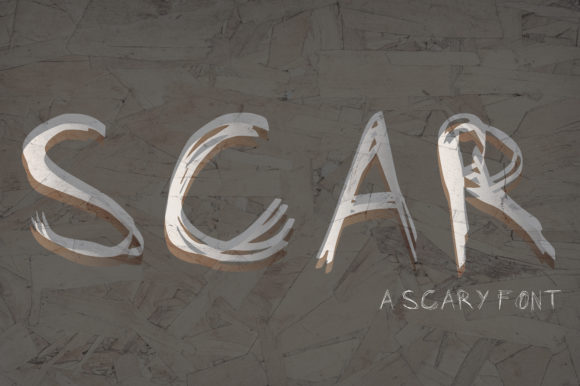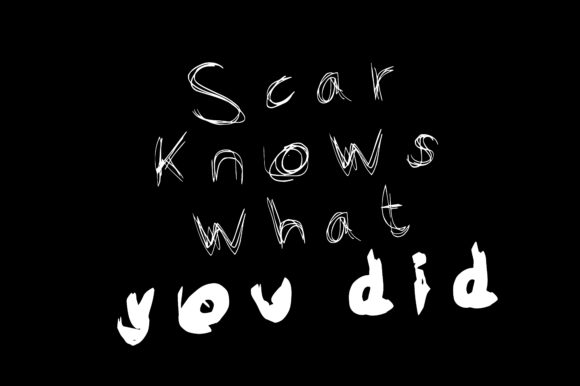
HomeScript FontsScar Font Script Fonts Scar Font FacebookXPinterestWhatsApp Scar Font Poster 2 About Scar Font Scary, angry looking, rough, etched styled scary hand drawn font great for Halloween. Use with caution! DOWNLOAD ON CREATIVE FABRICAThis font is sold and delivered by Creative Fabrica. Font Canyon may earn a commission if you buy through this link. People also explored School Font Dastie Font Migoove Font Lucky Nurse Font Sprinkles Font Font Bathiora Font Mountain Font Summer Dream Font Stack Font 301 0 TagsScar Font Previous articleNibble FontNext articleDeen Haag Font LEAVE A REPLY Cancel reply Comment: Please enter your comment! Name:* Please enter your name here Email:* You have entered an incorrect email address! Please enter your email address here Website: Save my name, email, and website in this browser for the next time I comment. Personal Use Free Kinda Sweet Personal Use Free Read more about this font Bulky Personal Use Free Read more about this font Hello Sarrah Personal Use Free Read more about this font Heart Personal Use Free Read more about this font BLOG How to Install and Use Fonts on Windows, macOS, and Web Projects How to Install and Use Fonts on Windows, macOS, and Web Projects Fonts are a crucial part of design and branding. Whether you’re designing a... 5 Fonts That Will Dominate Design Trends in 2026 Top 10 Handwritten Fonts That Elevate Your Designs Modern Sans-Serif Fonts That Brands Love in 2025